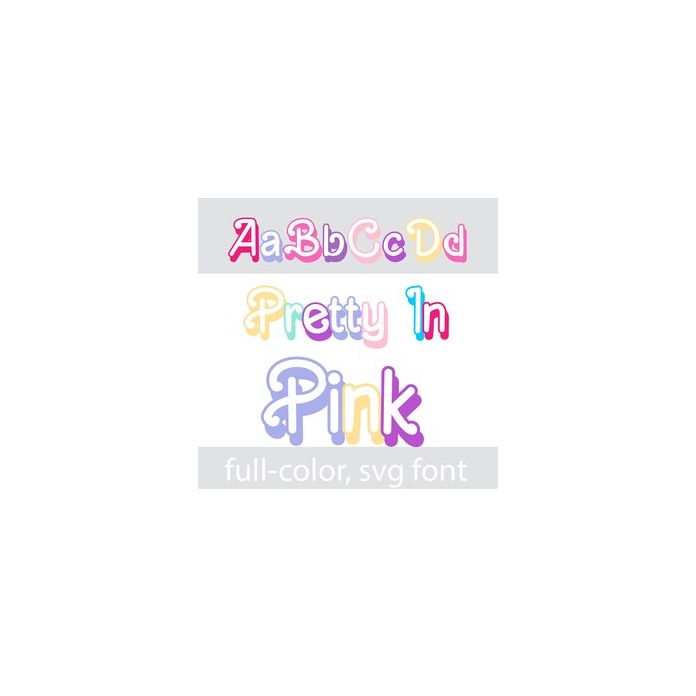
This full-color font is the perfect font to compliment your rainbow or pink projects with a fun, candy-colored rainbow palette. There is an alt case w/ additional colors you can access through your system or Silhouette's glyph map.